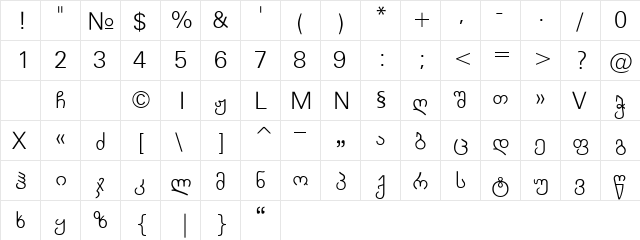
Arachveulebrivi Thin Regular
Design Context for Arachveulebrivi Thin Typeface
Arachveulebrivi Thin offers clean, dependable letterforms without strong stylistic allegiance, making it a practical choice for designers who need flexibility. Its slender proportions lend an understated elegance to any composition.